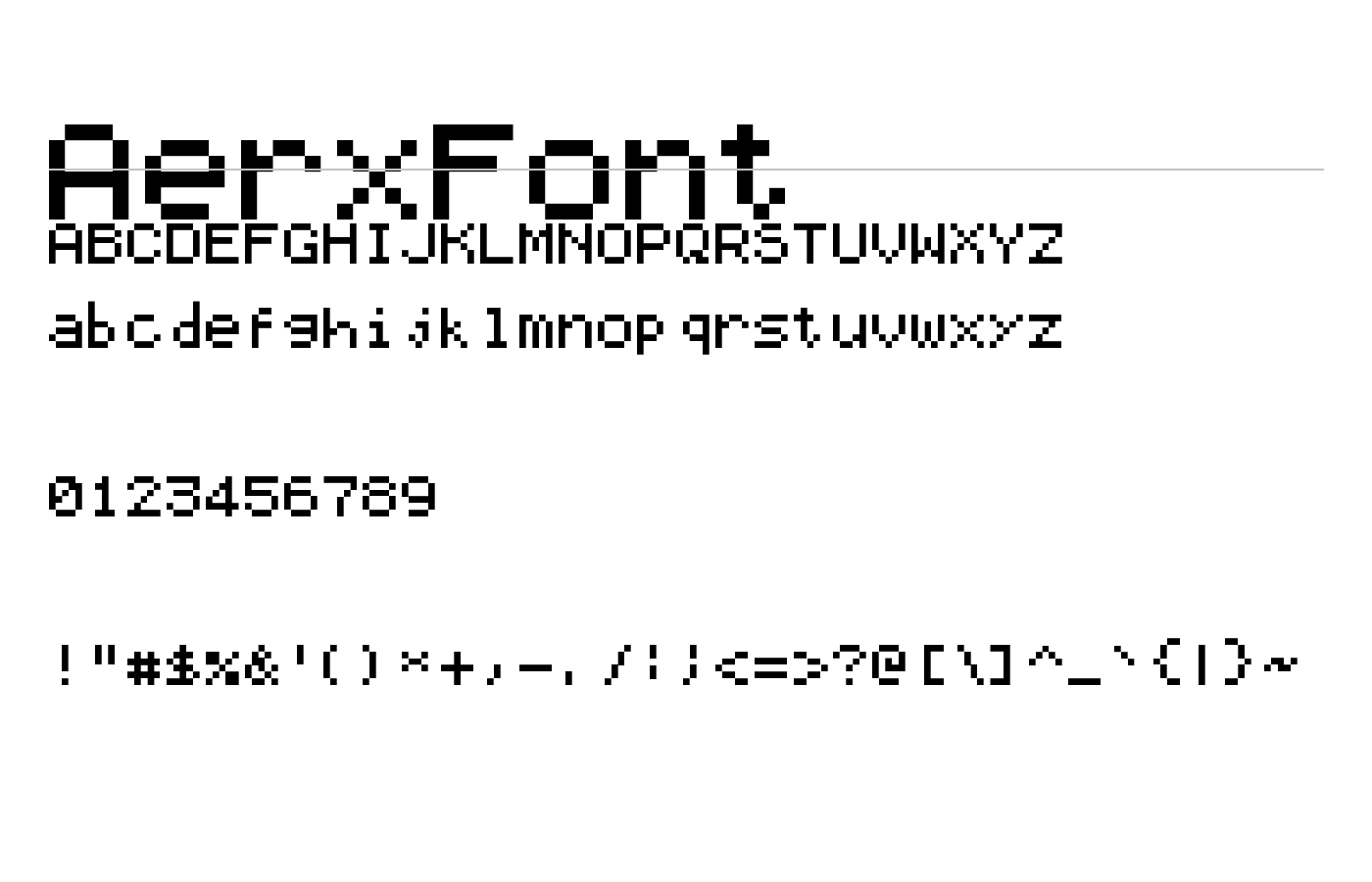
AerxFont is a pixelated, monospaced sans serif typeface that captures the nostalgic feel of retro digital screens and early computer fonts. Its blocky, sharp-edged letterforms with uniform stroke weight make it ideal for tech-inspired designs, gaming interfaces, and digital art projects where a vintage or minimalist digital aesthetic is desired. This font works best in headlines, logos, and low-resolution displays where clarity and pixel-perfect style stand out.
AerxFont
About AerxFont